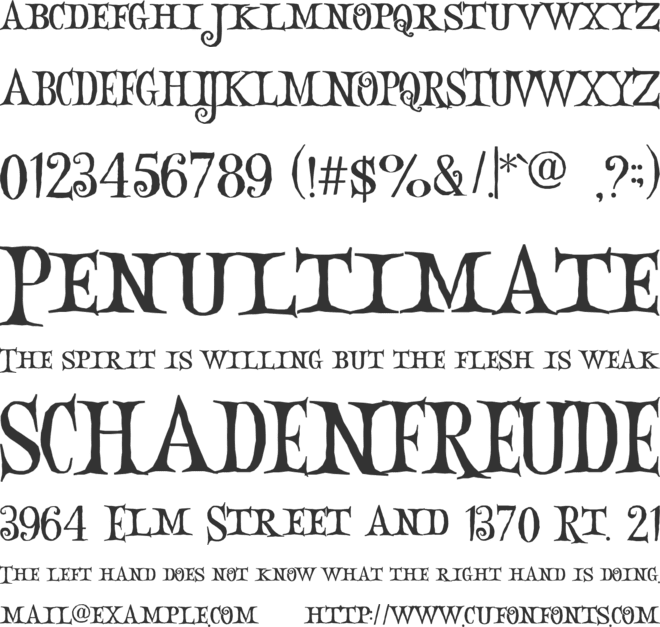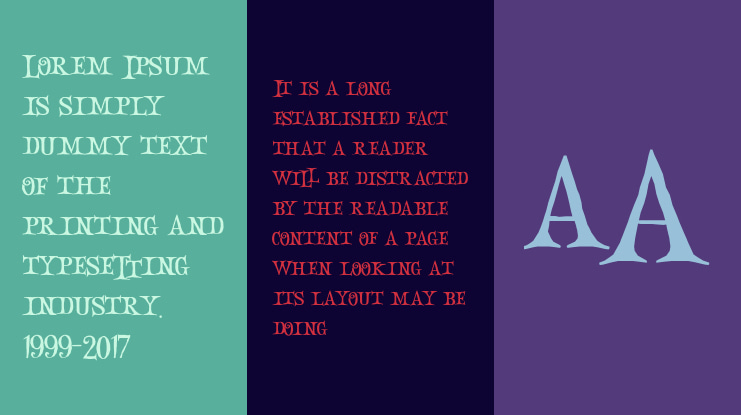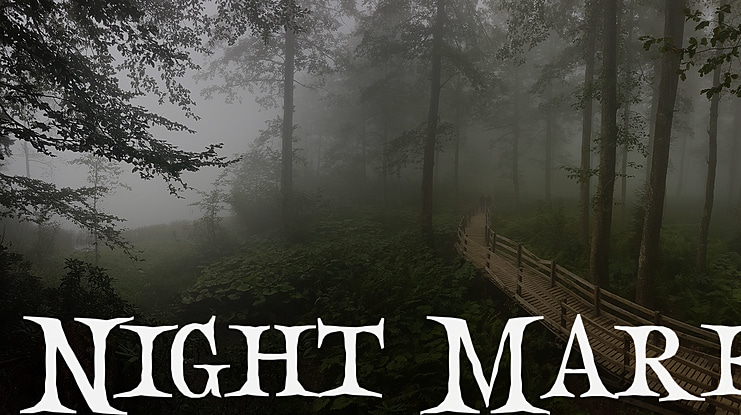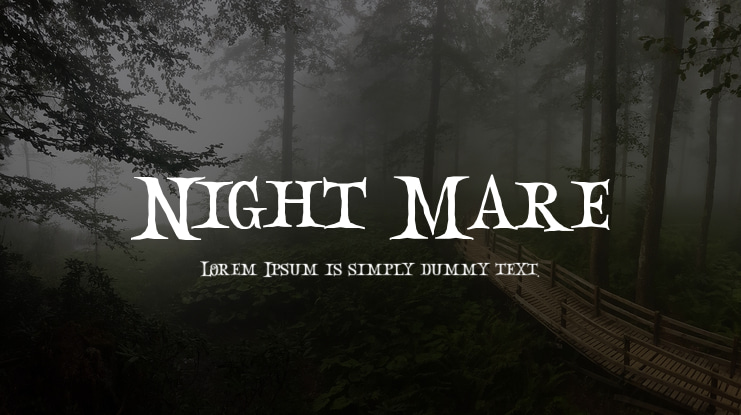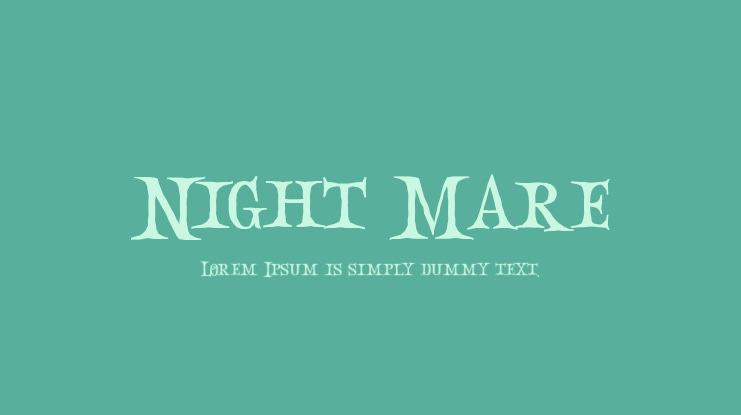
Night Mare Font
INTRODUCING - Night Mare fun and playful display serif typeface.
Night Mare is a fun and playful font with scary / horror theme. This font come with beautiful dingbats bonus and some ligature text to make your perfect project.